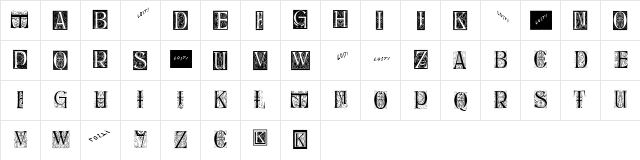
DelitschInitialen Regular
Design Context for DelitschInitialen Typeface
DelitschInitialen is a composed and adaptable typeface that performs quietly and consistently across a wide range of design contexts.